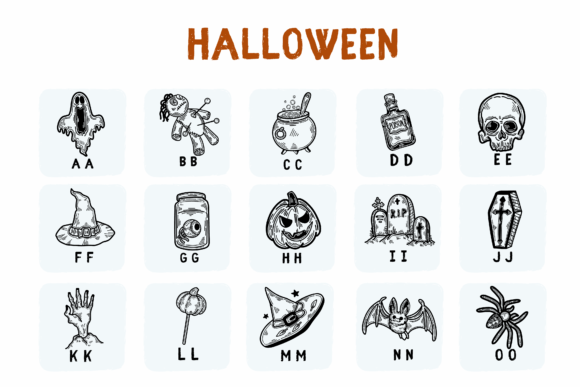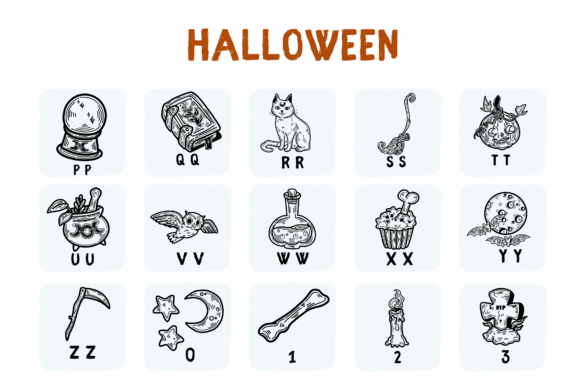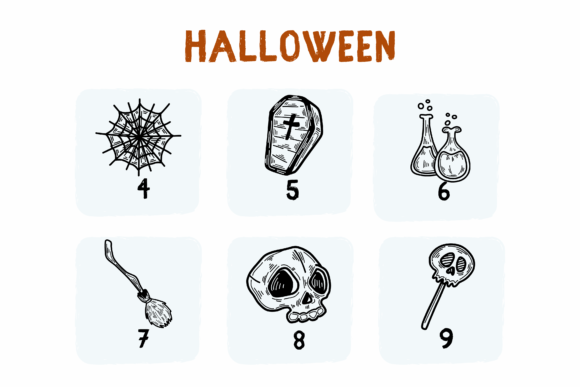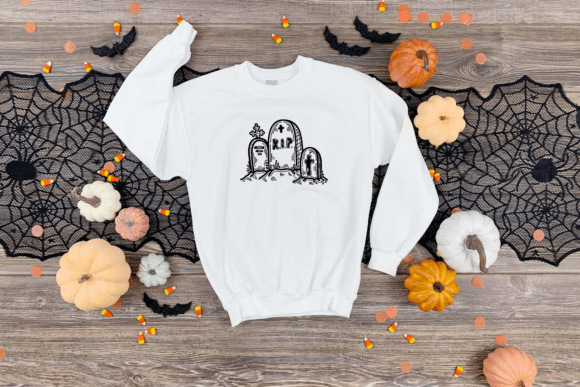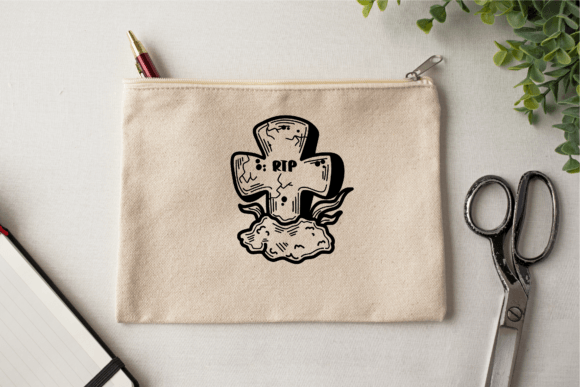
Halloween Dingbat Font: A Spooky Symbol Collection for Your Designs
As the spookiest time of the year approaches, designers and crafters are on the lookout for creative ways to add a Halloween touch to their projects. One exciting way to do this is by using a Halloween Dingbat Font, a special font filled with spooky symbols like pumpkins, skulls, witches’ hats, and bats. In this article, we’ll dive into the world of Halloween Dingbat Fonts, exploring their uses, benefits, and how to incorporate them into your designs.
What is a Halloween Dingbat Font?
A Halloween Dingbat Font is a type of font that features a collection of Halloween-themed symbols, such as:
• Pumpkins and jack-o’-lanterns
• Skulls and crossbones
• Witches’ hats and broomsticks
• Bats and spiders
• Ghosts and zombies
• Other creepy crawlies and spooky icons
These fonts are designed to add a playful and spooky touch to your designs, making them perfect for Halloween-themed projects, such as invitations, party decorations, and social media graphics.
Benefits of Using a Halloween Dingbat Font
Using a Halloween Dingbat Font offers several benefits for designers and crafters:
• Customizable: Mix and match symbols to create unique and personalized designs.
• Scalable: Use the font in various sizes, from small icons to large banners.
Design Ideas Using a Halloween Dingbat Font
Get creative with these design ideas:
• Halloween party invitations: Use the font to create spooky invitations, complete with jack-o’-lanterns and bats.
• Social media graphics: Add a Halloween touch to your social media posts with creepy symbols and icons.
• DIY decorations: Use the font to create custom signs, banners, and decorations for your Halloween party.
• Craft projects: Incorporate the font into your craft projects, such as handmade cards, gift tags, and scrapbook pages.
A Halloween Dingbat Font is a fun and creative way to add a spooky touch to your designs and decorations. With its collection of Halloween-themed symbols, this font is perfect for designers and crafters looking to create unique and eye-catching projects. Whether you’re designing party invitations, social media graphics, or DIY decorations, a Halloween Dingbat Font is sure to cast a spell on your audience.